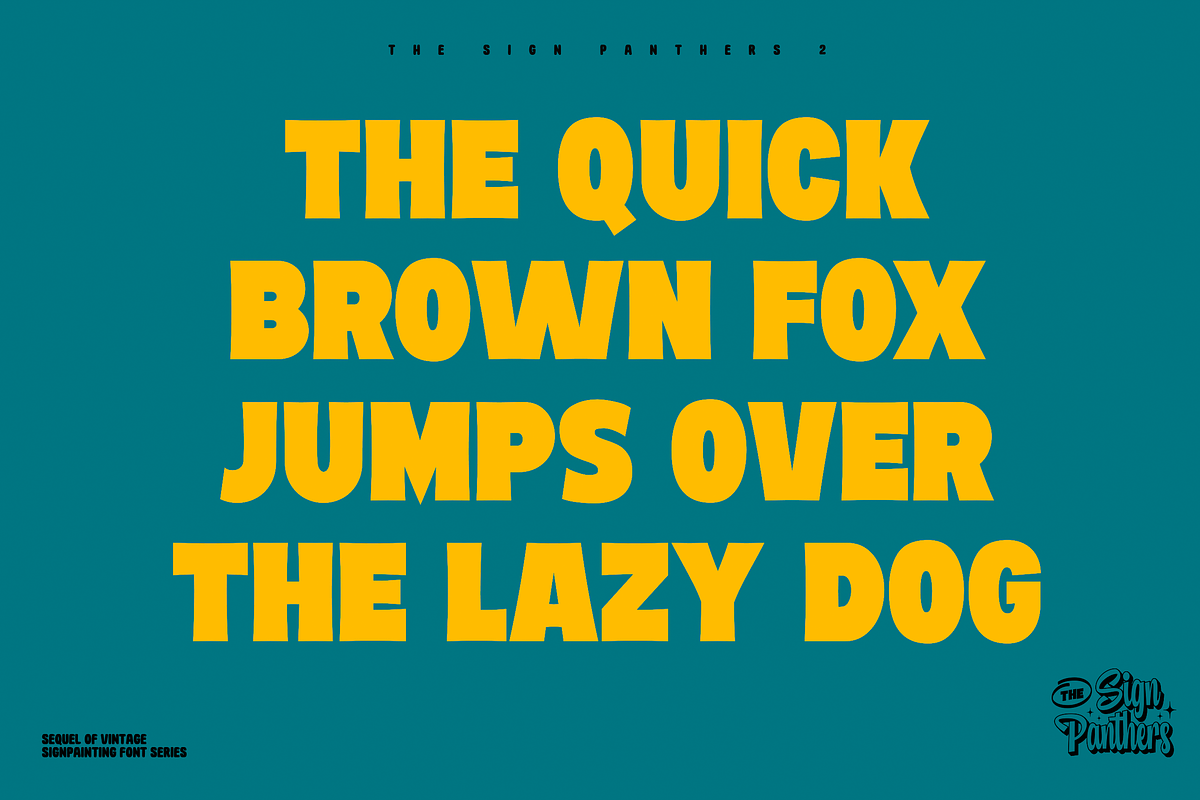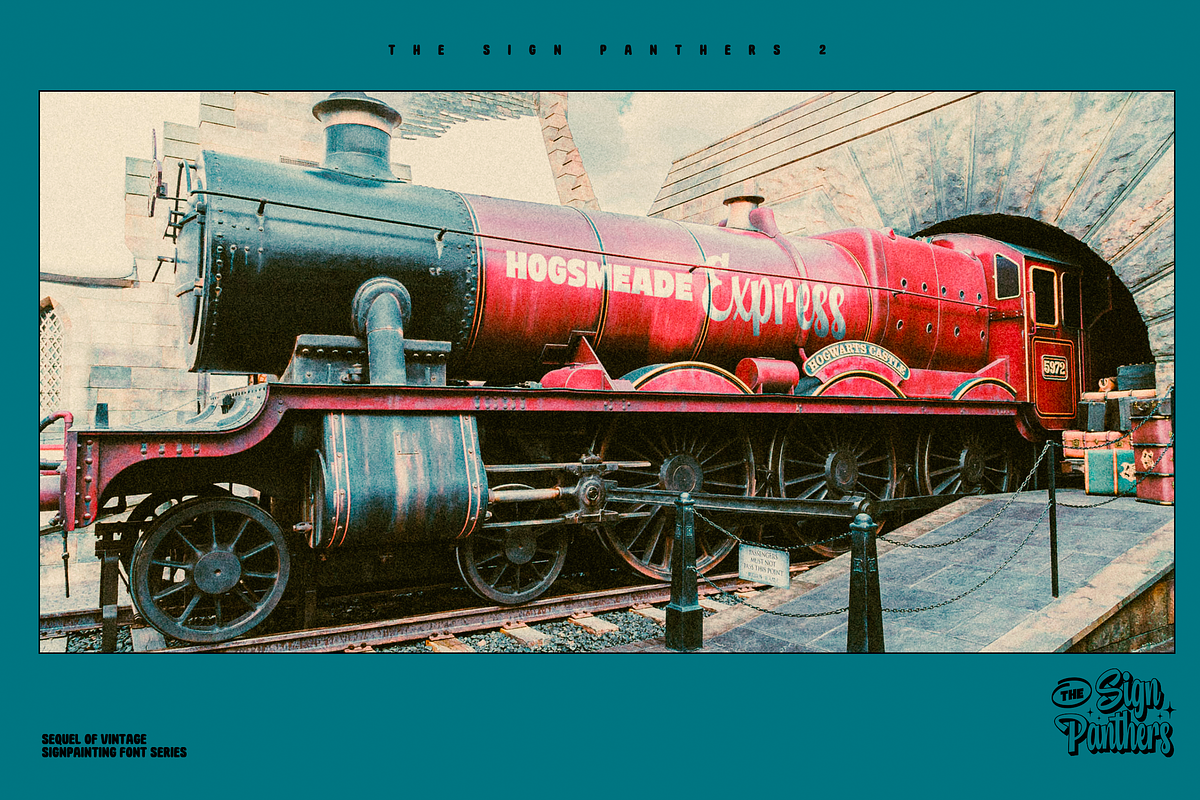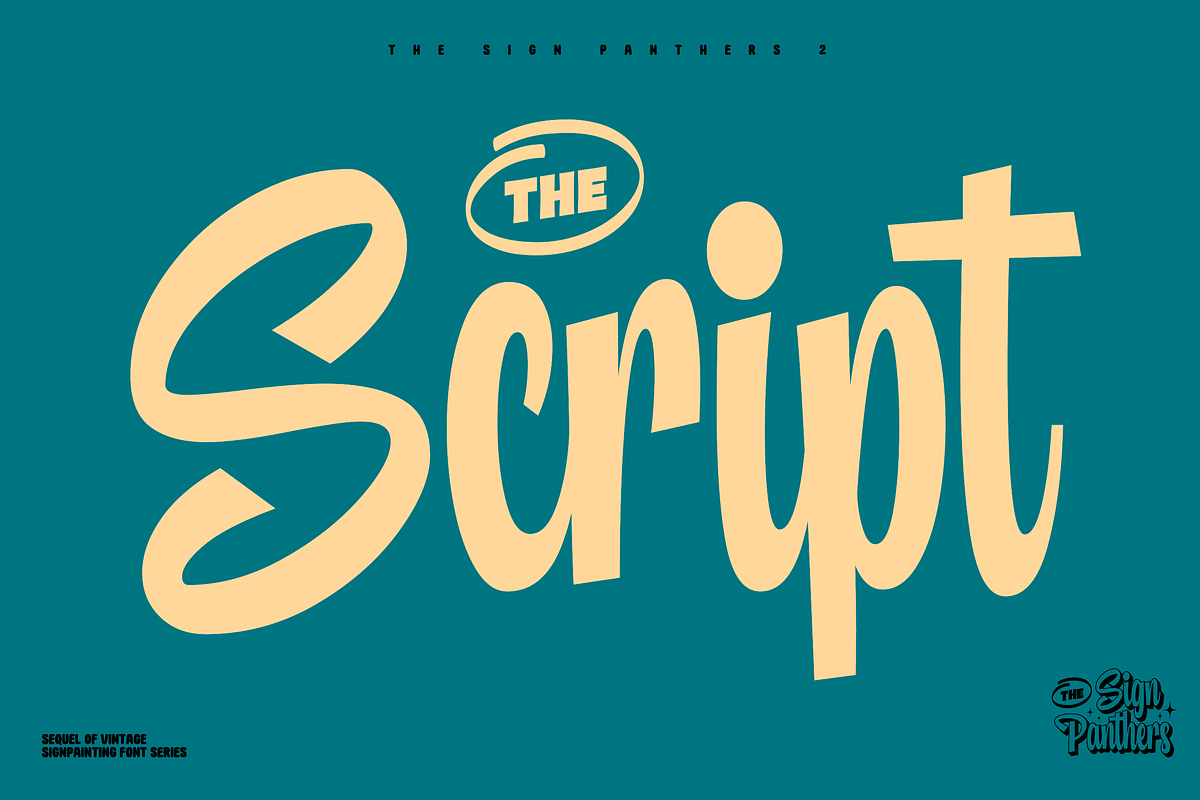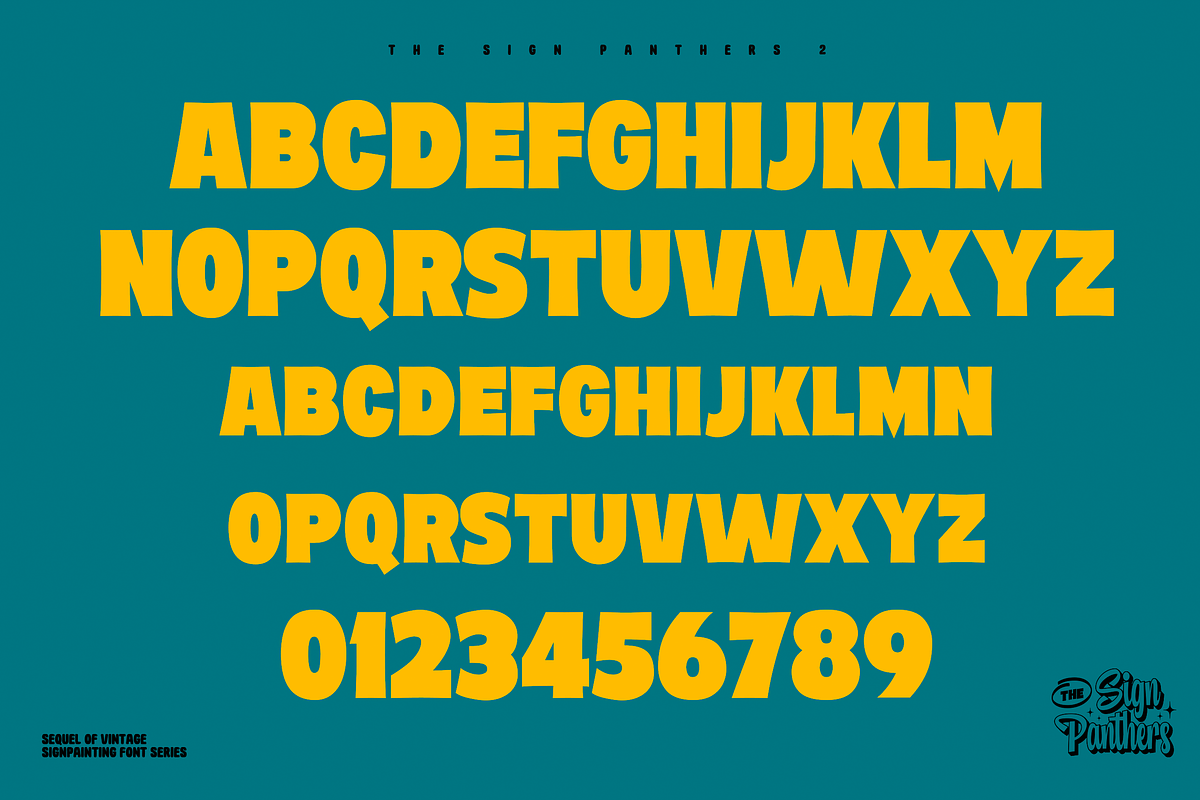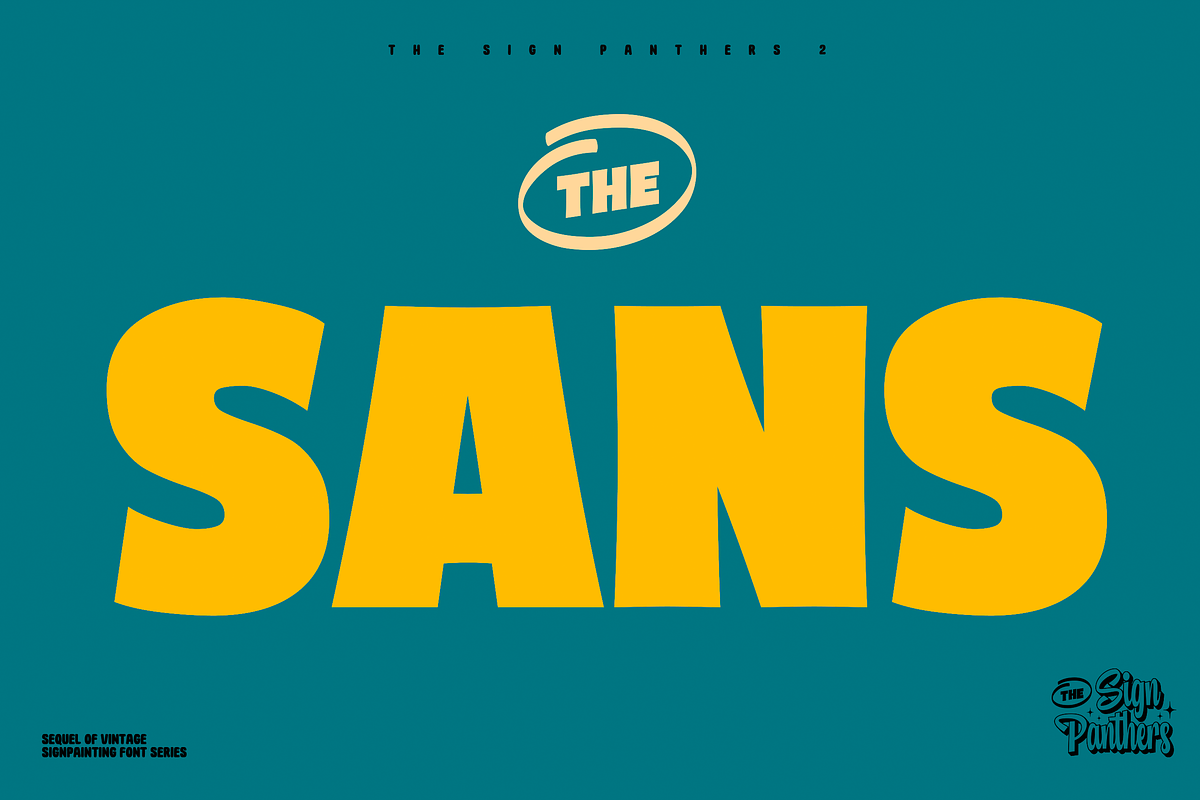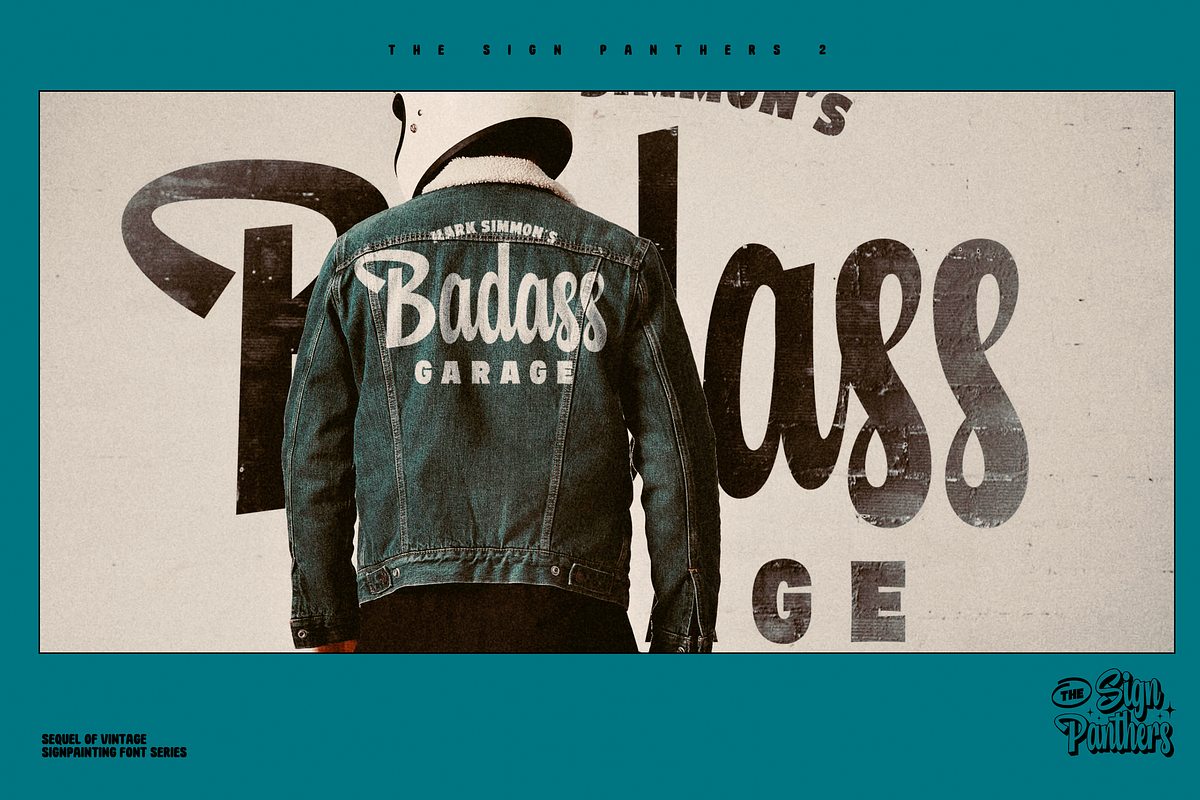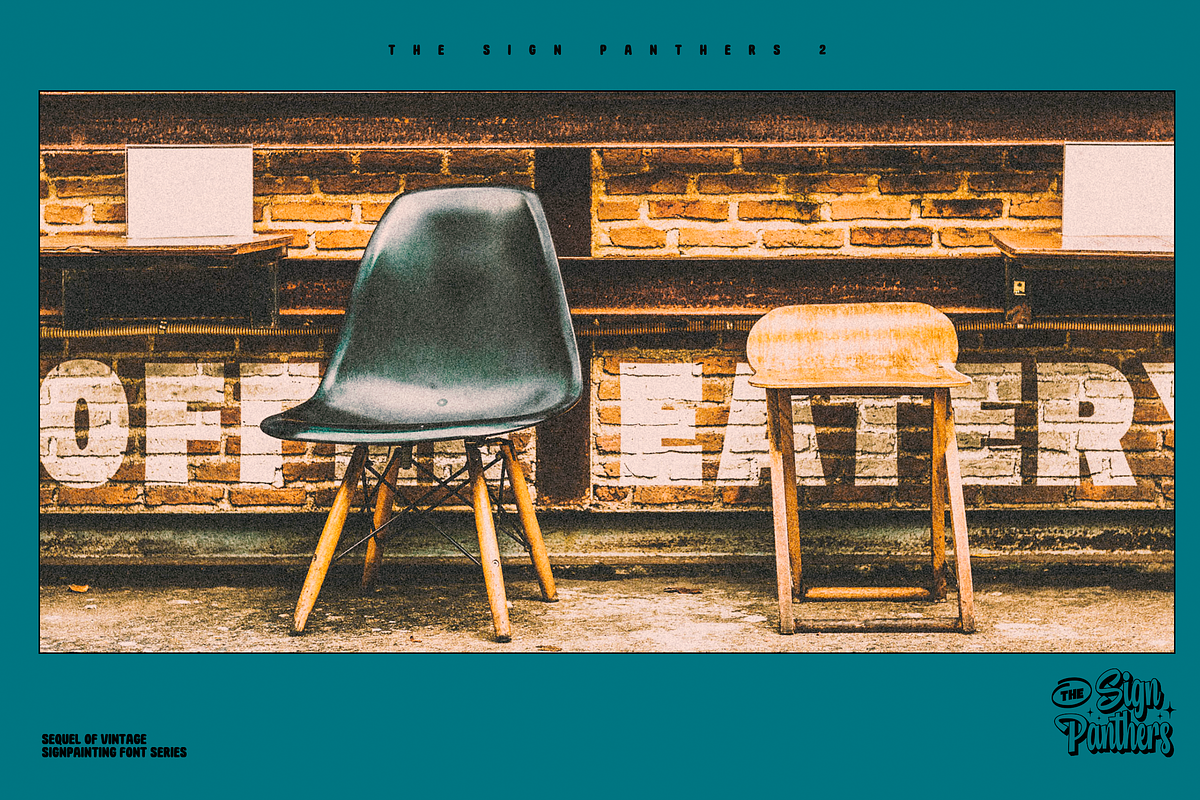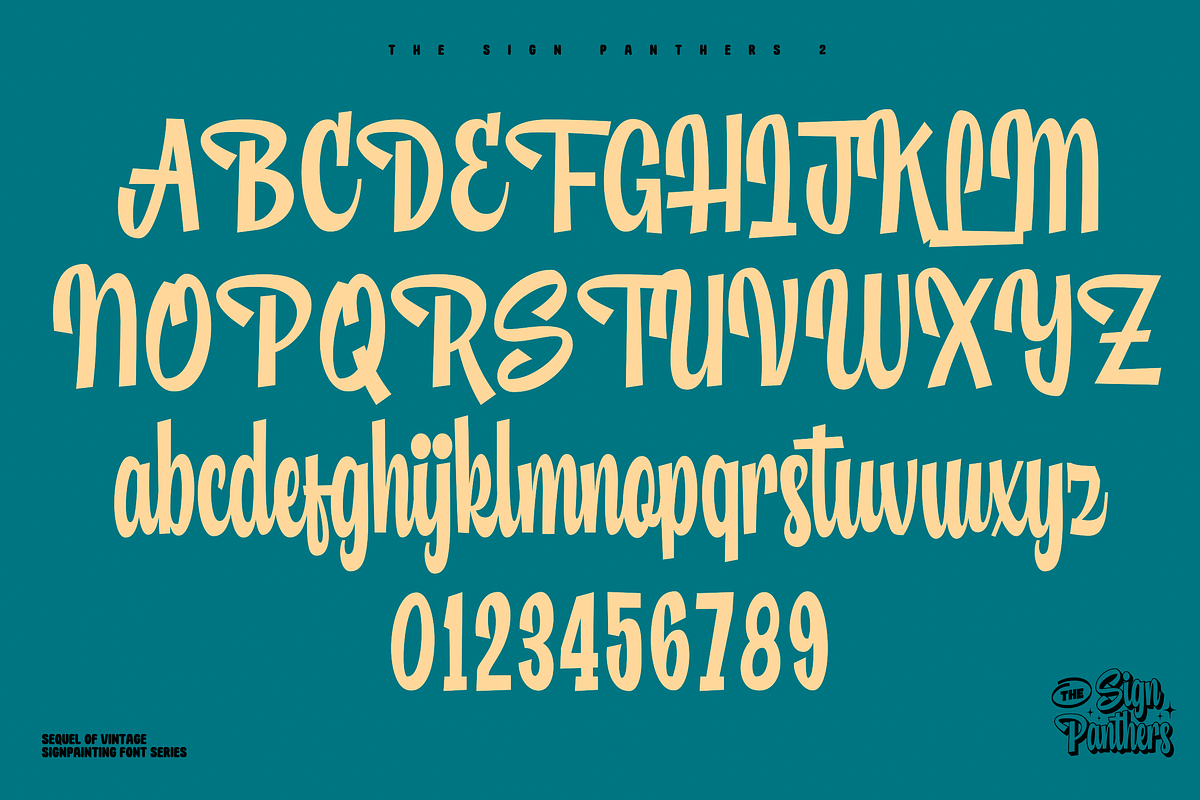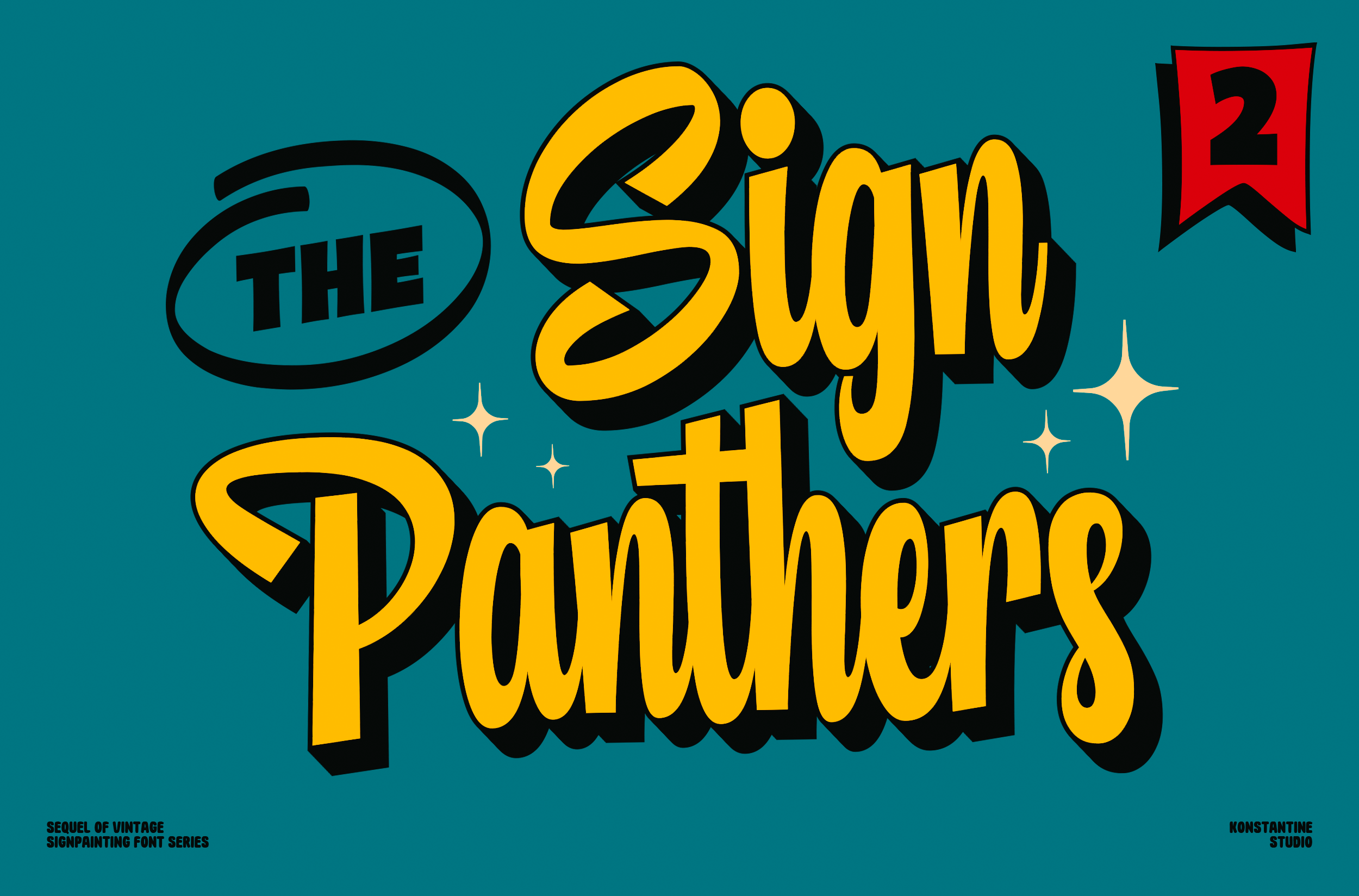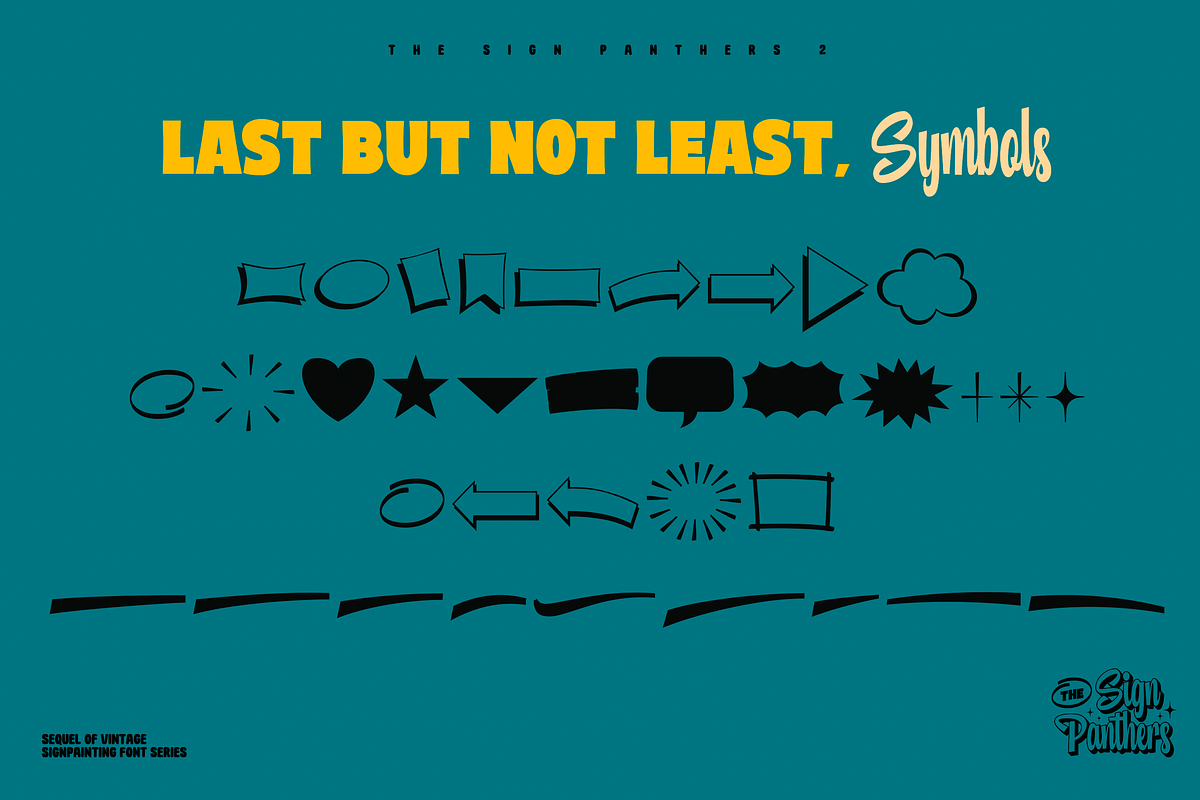
Sign Panthers 2 - Sign Painting Font
Refreshment sequel from our release back in 2017. Came up with the same concept, same style, but elevated technically. Please welcome, Sign Panthers 2
Inspired from the vintage sign painting visual treatment back in the day. Tailored up with the sense of modern touch, to make it still relevant in such a wide range of an era.
Contains Sans-Serif, Script, and Symbols that are crafted to be well-paired for each other.